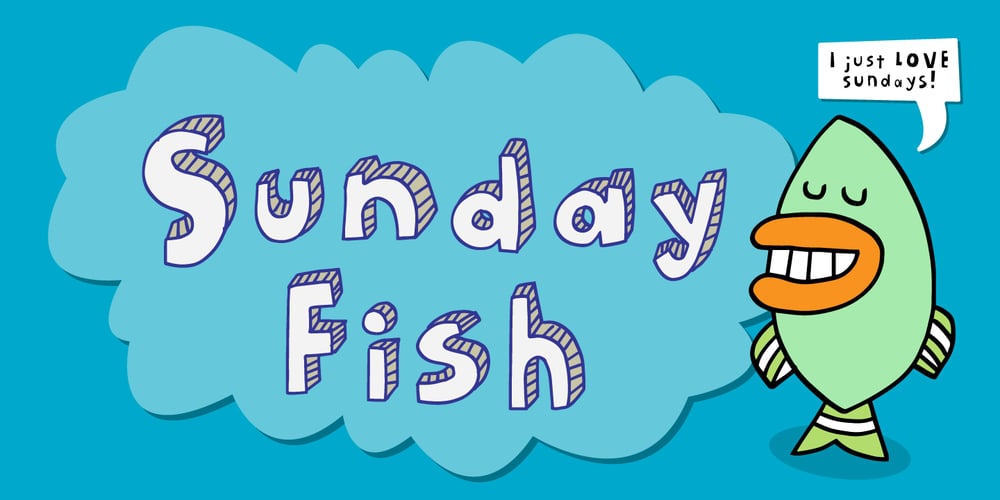
Sunday Fish Font Family was designed by Jakob Fischer and published by PizzaDude.dk. Sunday Fish contains 4 styles and family package options. I am not sure if there is such a thing as a Sunday Fish. But anyway, now you have a font with that name! My idea of a Sunday Fish is a lazy, goofy and kinda laid back one. One you’d like to play around with, and a friend for life – not that kind of fish that ends up on your plate! ๐ Sunday Fish has massive language support and 4 different versions of each lowercase letter, and these automatically cycle as you type! It comes in 4 different layered versions, which works well together – just play around with the layers and your favourite colours!